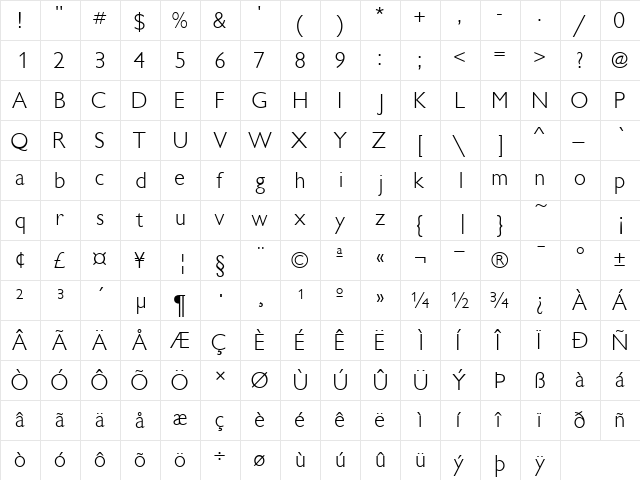
ReparteeSSK Regular
Design Context for ReparteeSSK Typeface
ReparteeSSK offers clean, dependable letterforms without strong stylistic allegiance, making it a practical choice for designers who need flexibility.